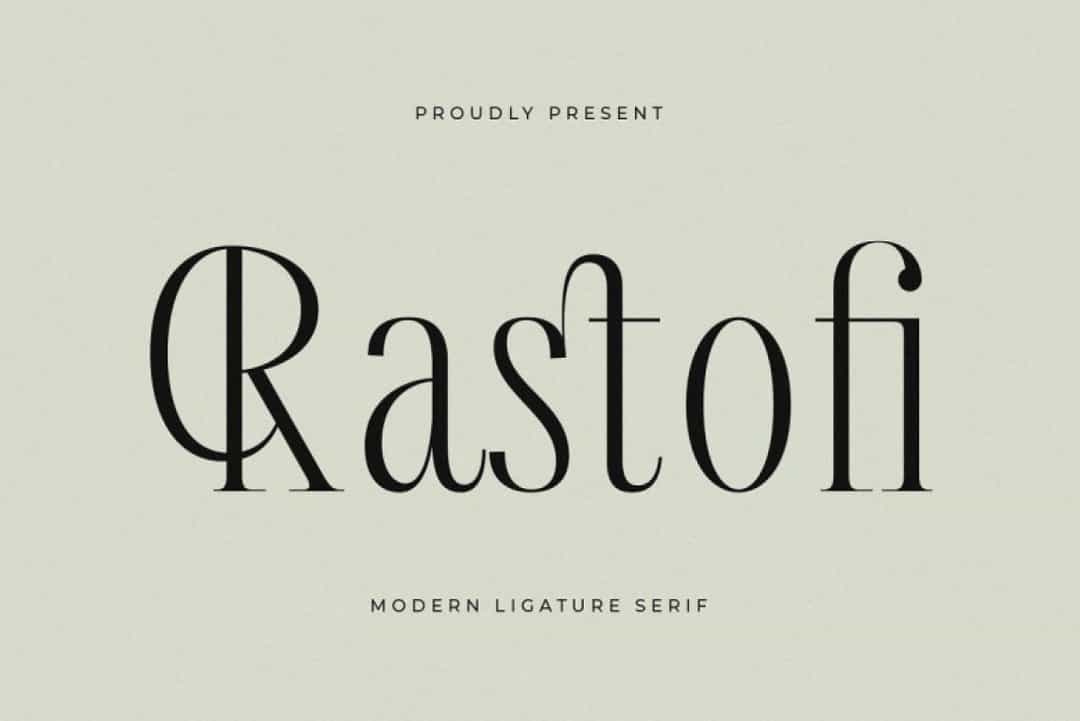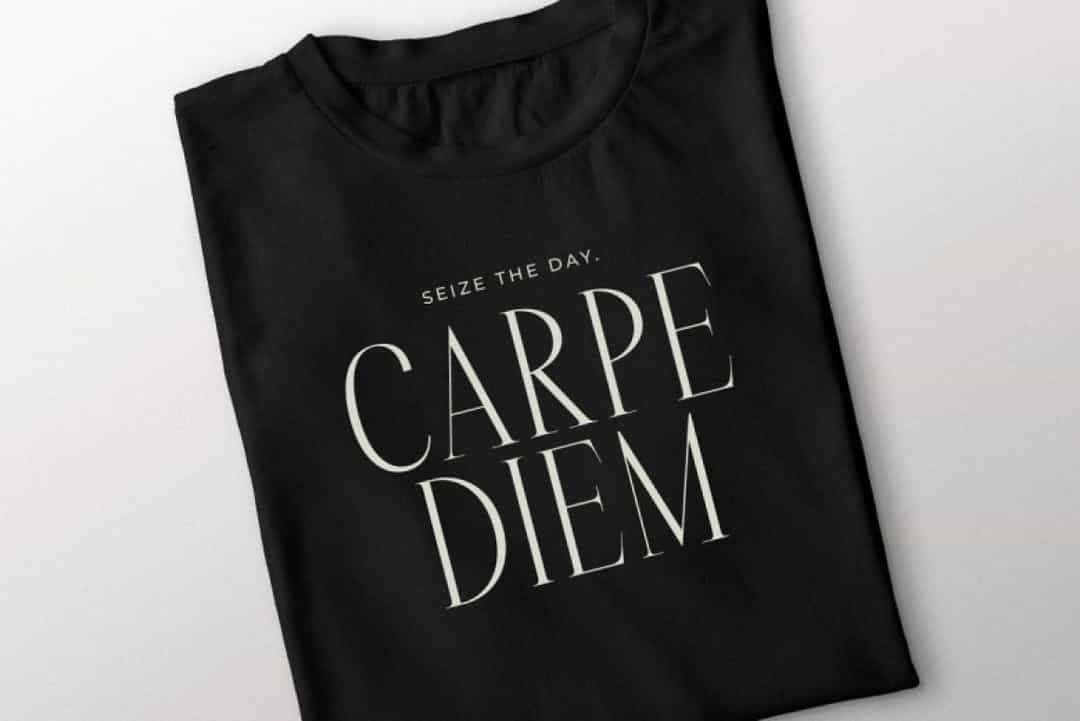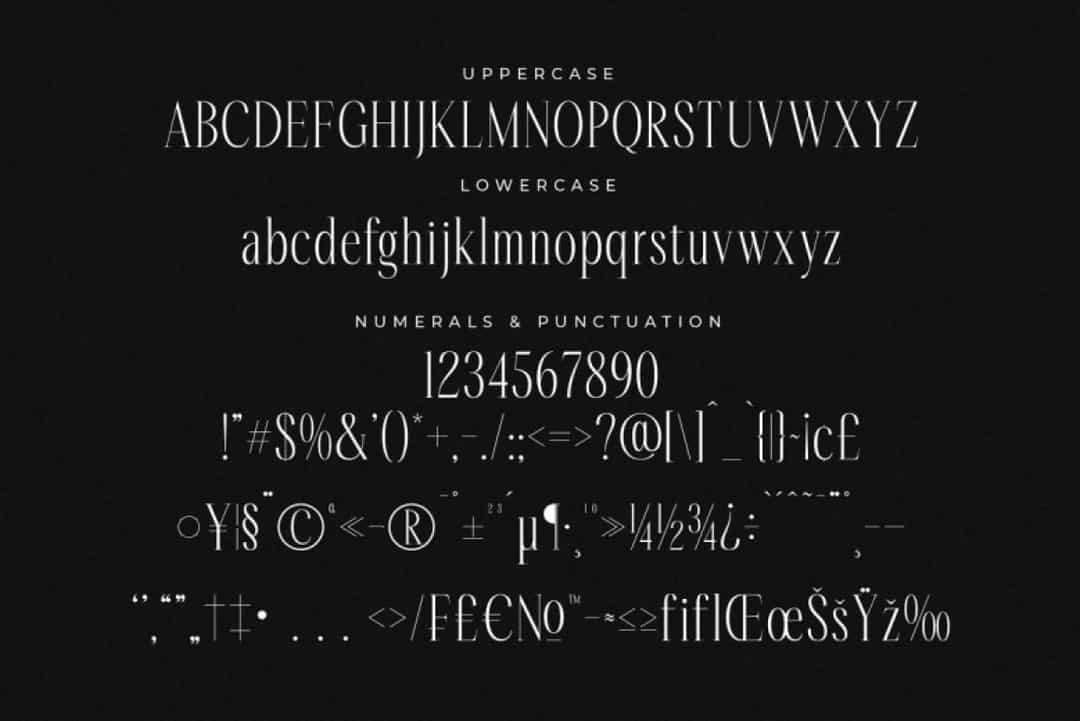
Discover Rastofi Font, part of the Serif collection—a versatile and unique font perfect for adding a personal touch to your projects. Download it for free and enjoy crafting designs with style, from invitations to social media posts. This font is available exclusively for personal use, giving you the freedom to create without limits. Unlock your creativity with Rastofi Font today!
Letterena’s Rastafi Contemporary Ligature Serif Font is perfect for creating logos, branding and homeware designs; packaging product such as mugs, posters, quotes shopping bags tshirts book covers name cards invitation cards